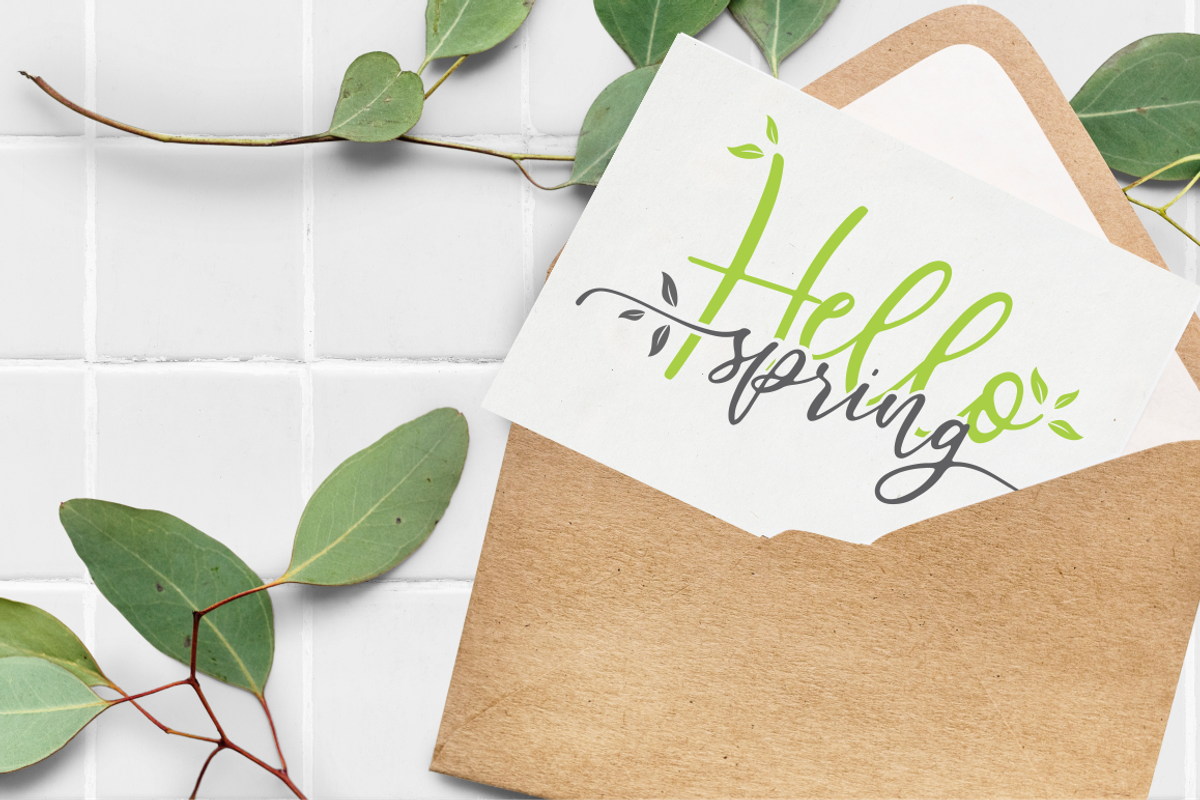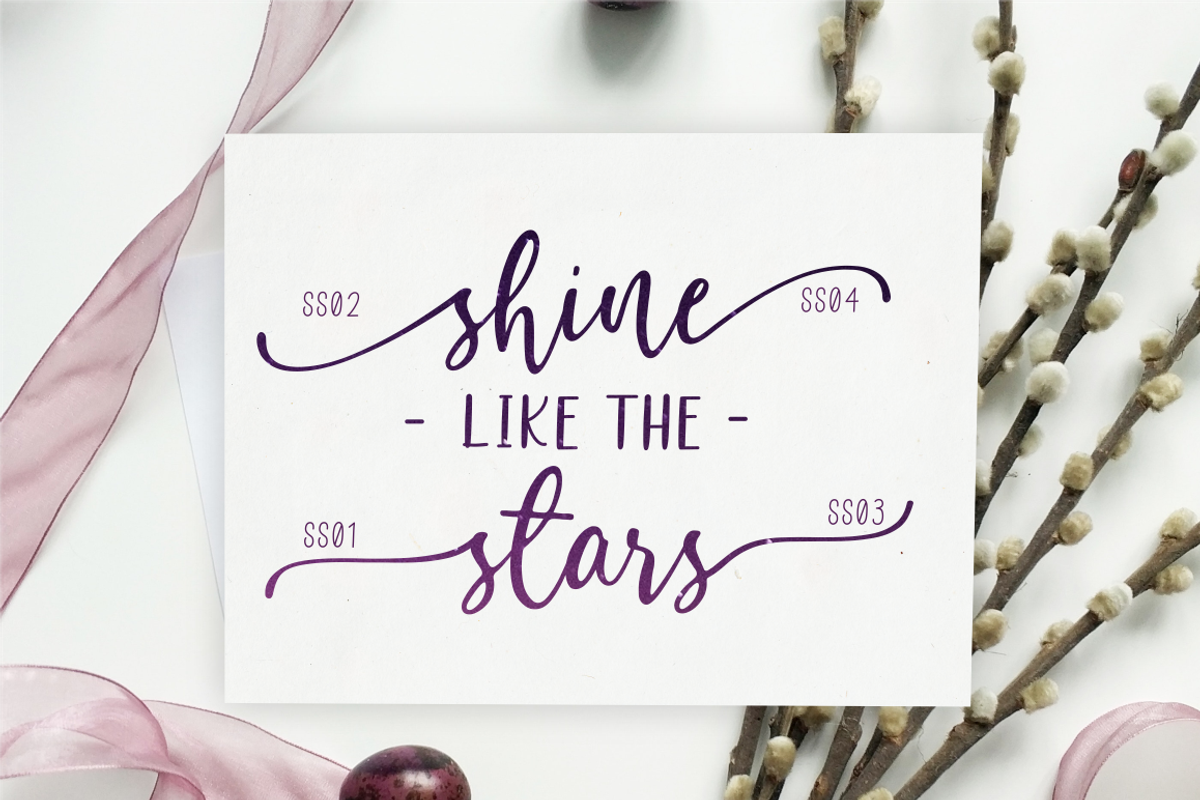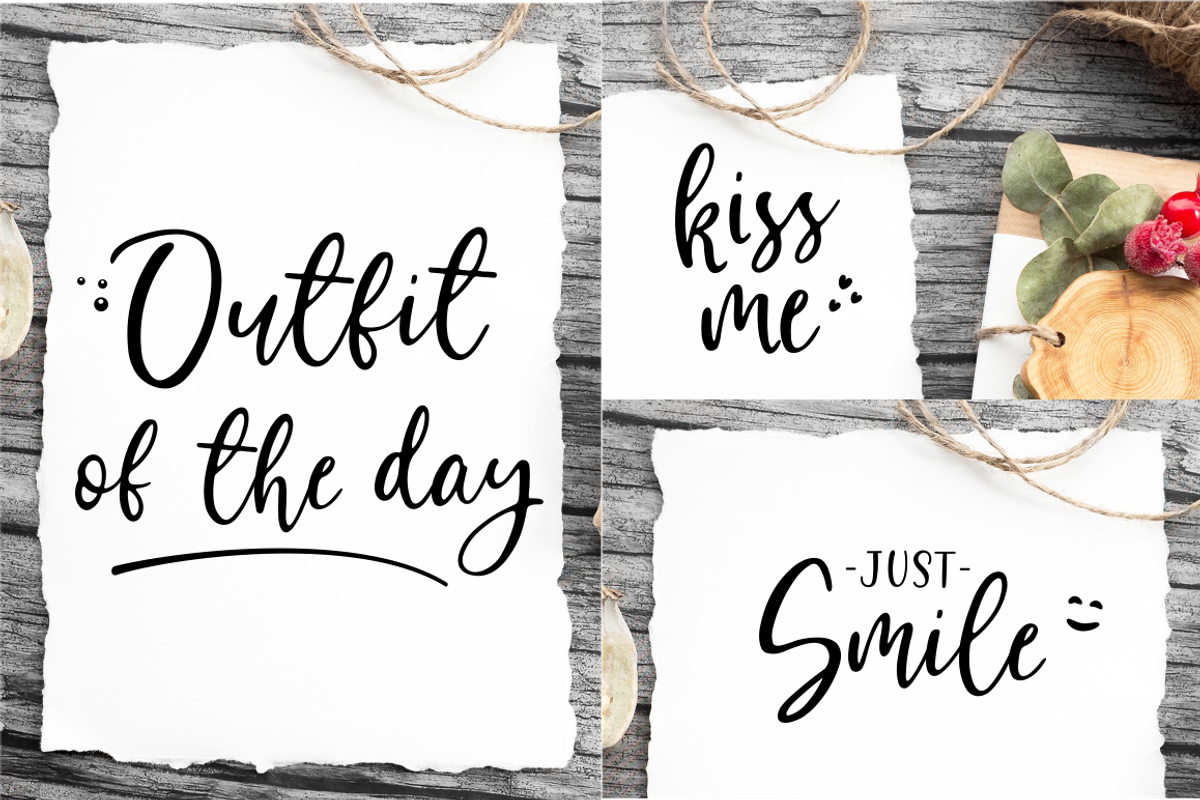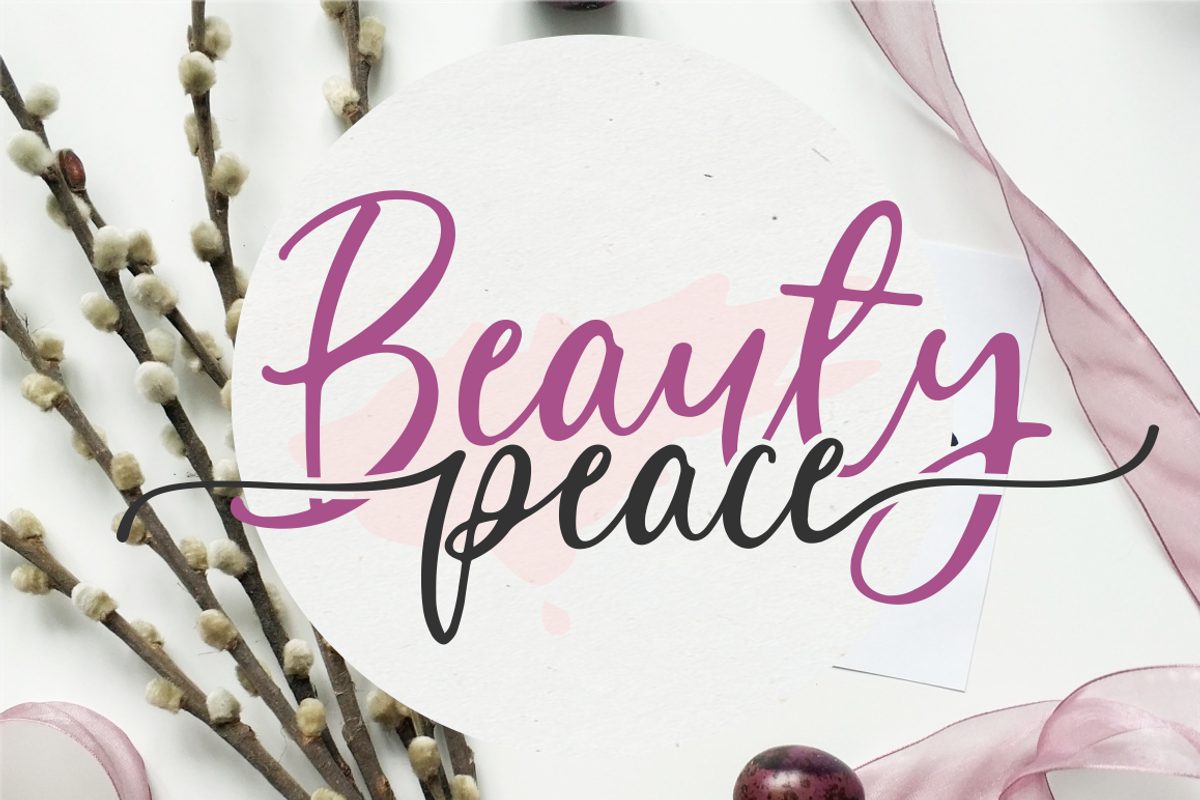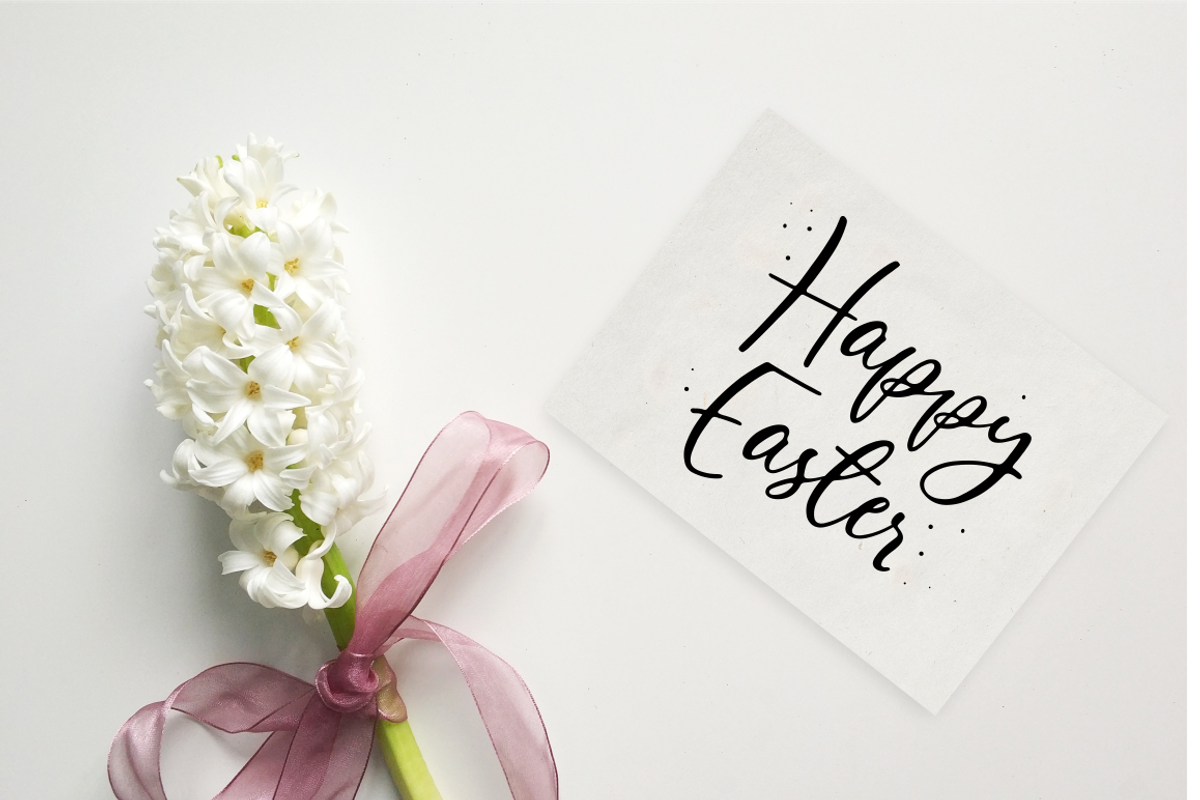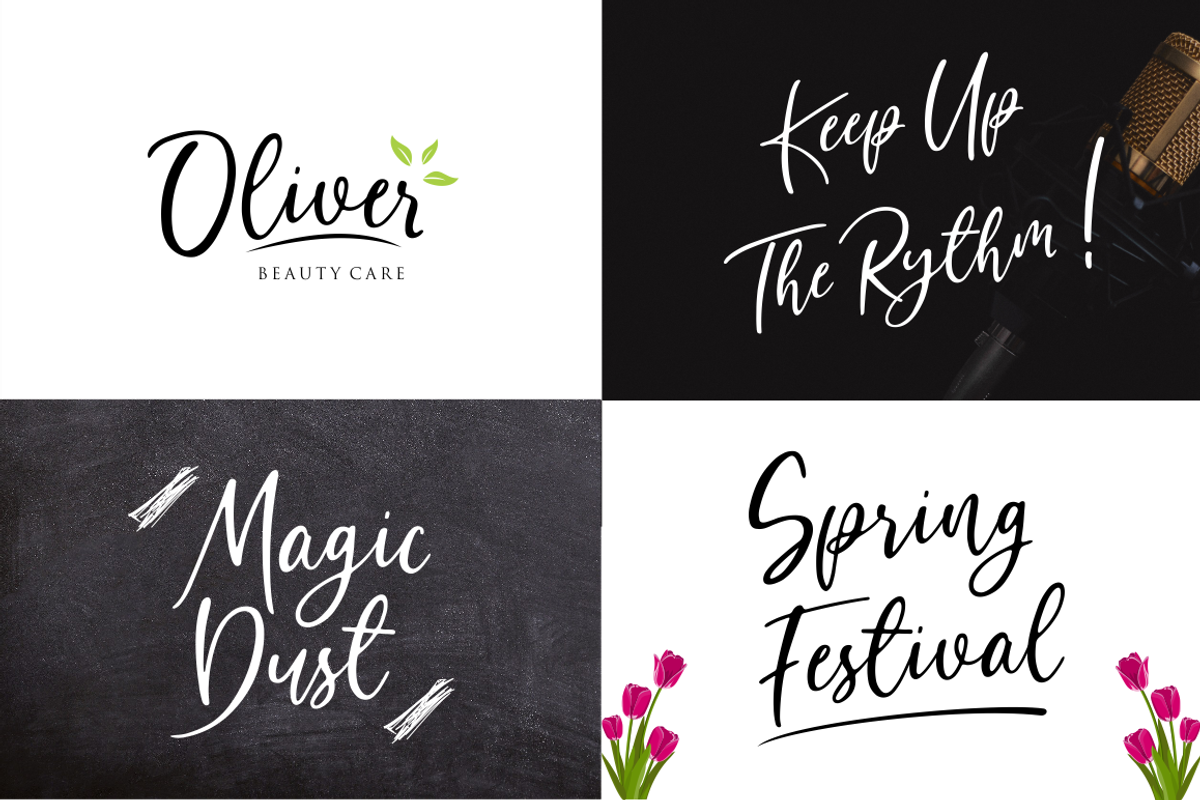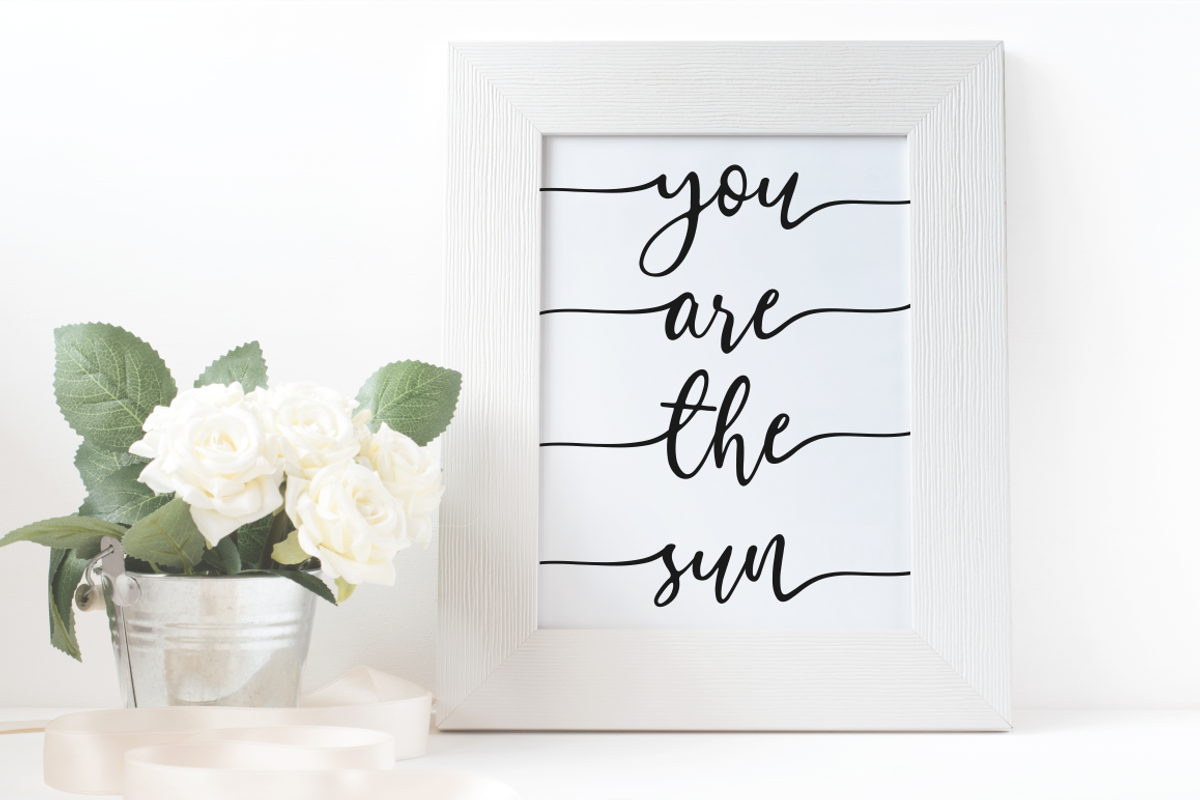
Bombinate // Handlettering Font
Introducing Bombinate – a new modern & fresh handlettering font that comes with alternate and start & ending swashes, make this font looks natural, elegant, and perfect for any awesome projects.
Bombinate is perfect for many different project such as logos & branding, invitation, stationery, wedding designs, social media posts, advertisements, product packaging, product designs, label, photography, watermark, special events or anything.